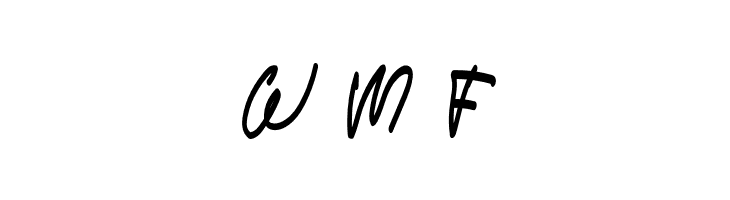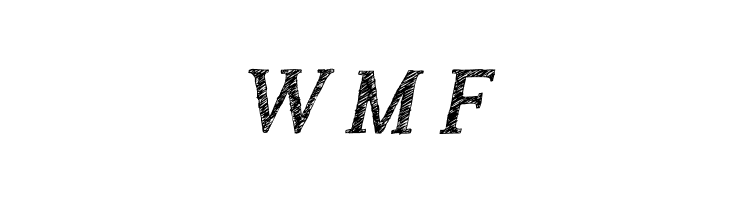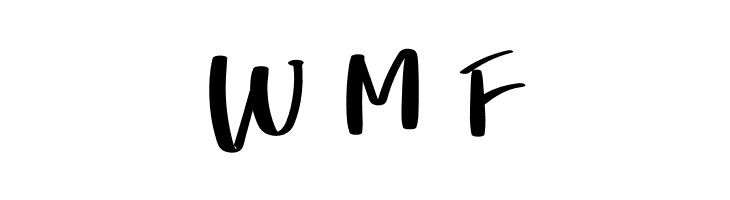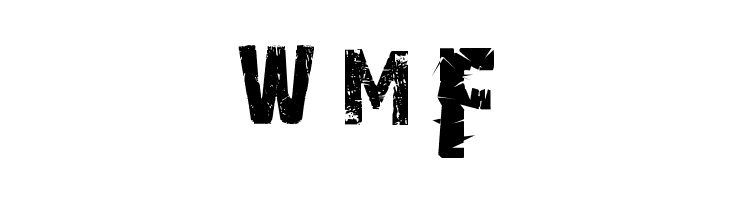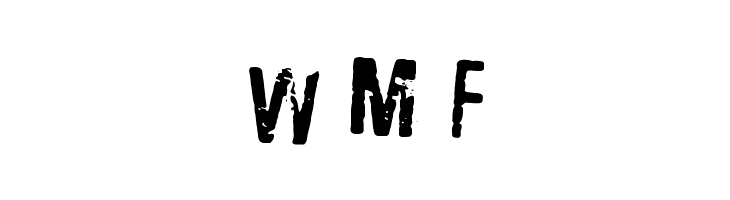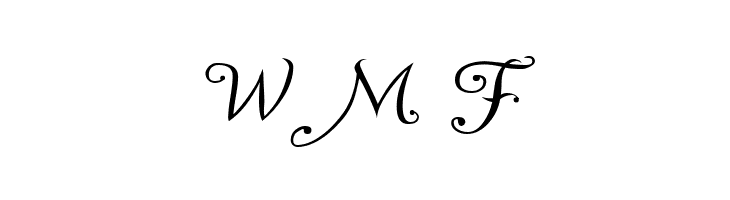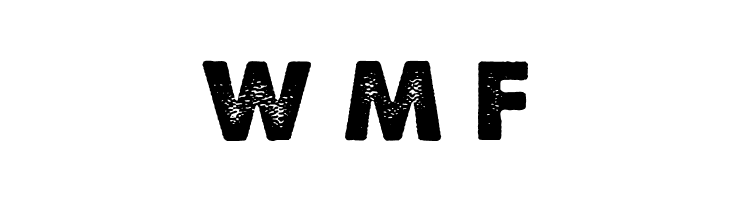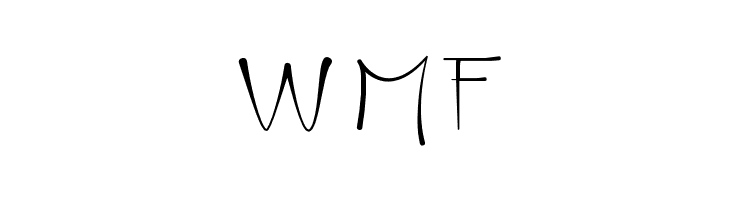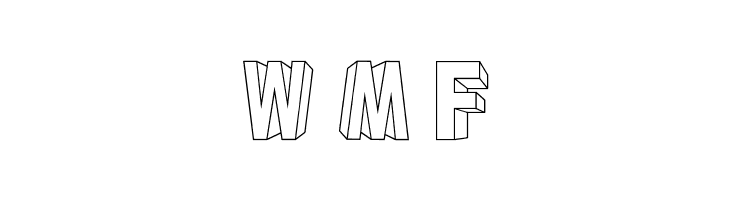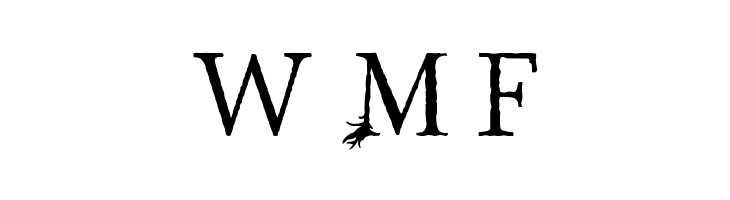
• A good day to die
A distressed, grunge-style font with a rugged, textured appearance.
• A Gothique Time
A gothic, distressed font with ornate and intricate letterforms.
• A HandMade Font
A playful and whimsical handwritten font with irregular strokes.
• A Little Mixed Up
A playful, rounded font with smooth, consistent strokes and a whimsical style.
• A Little Pot
A playful, hand-drawn font with a whimsical and friendly style.
• A Love of Thunder
A bold, distressed font with a vintage, rugged appearance.
• A Monster Free
An edgy, gothic font with claw-like serifs and a bold, dramatic style.
• A Mothers Love
A bold, expressive handwritten font with dynamic strokes and playful curves.
• A Perfect Place
A playful, handwritten font with smooth, flowing curves and interconnected letters.
• A Question
A lively, expressive handwritten font with fluid strokes.
• A Red Bucket
A playful, handwritten font with rounded, bubbly characters.
• a ripping yarn
A bold, textured font with a woven pattern, ideal for dynamic and modern designs.
• a ripping yarn too
A bold, textured font with a rope-like pattern, ideal for striking visual designs.
• A Smile Can Change The World
A playful, bold, and hand-drawn font with a whimsical charm.
• A Song For Jennifer Bold Italic
A bold, italic serif font with a classic yet modern appeal.